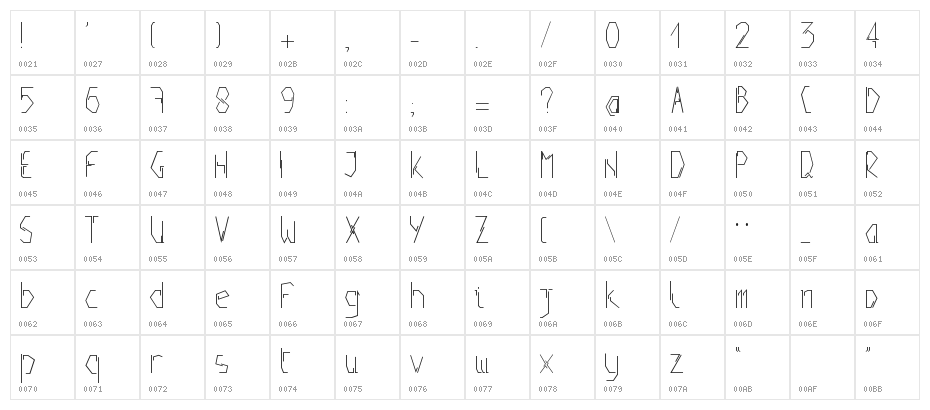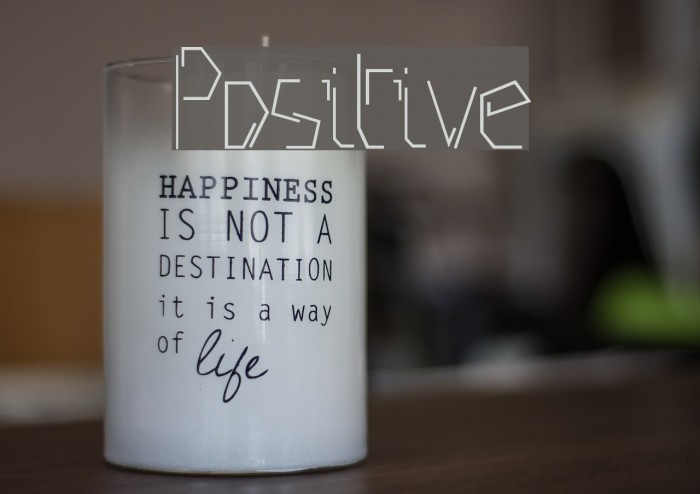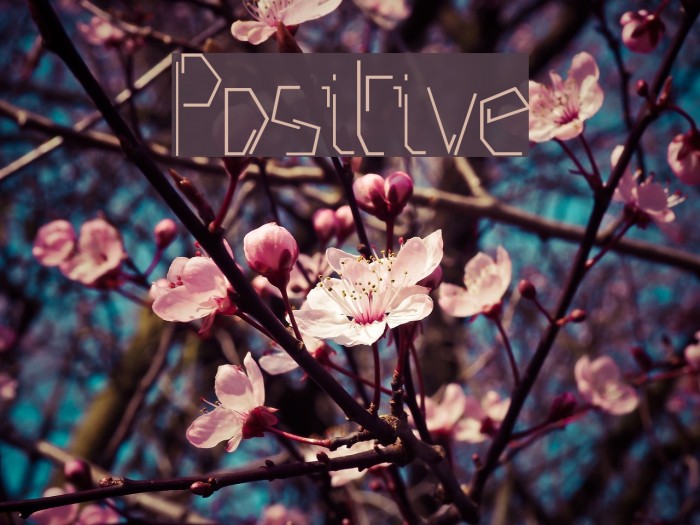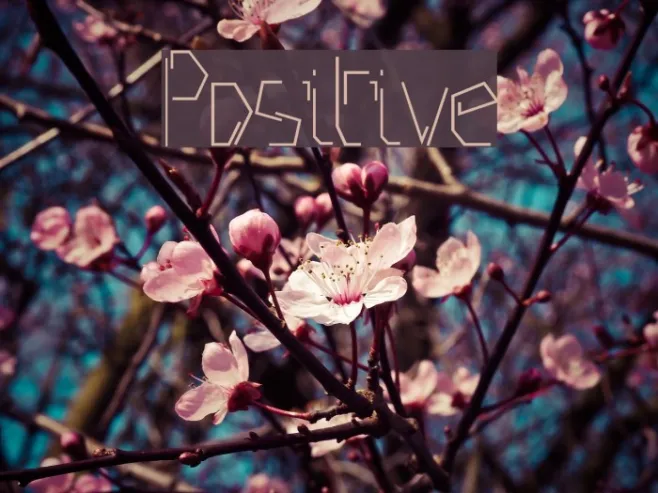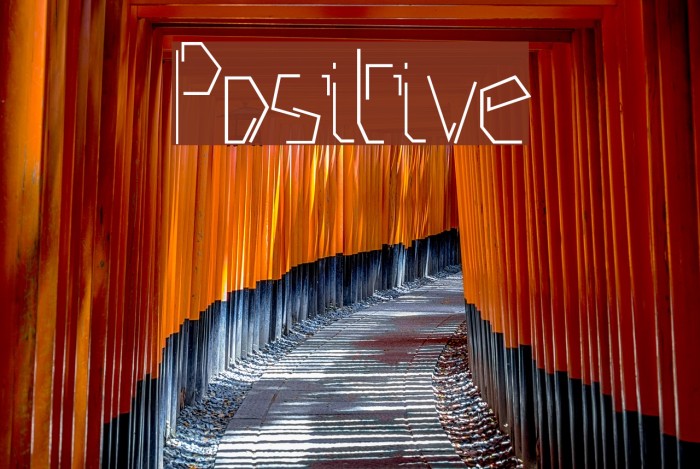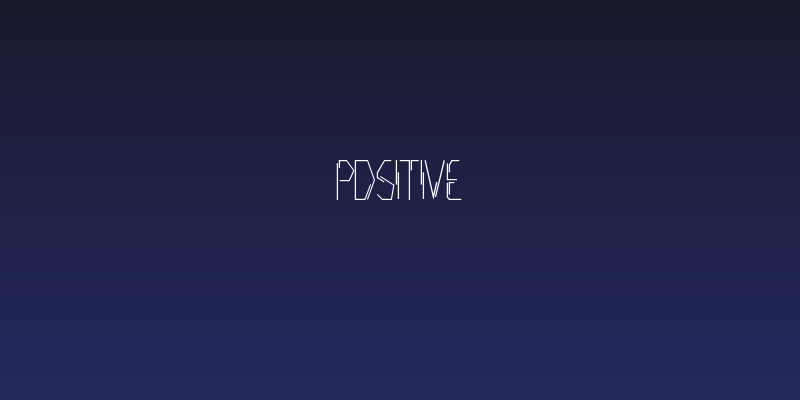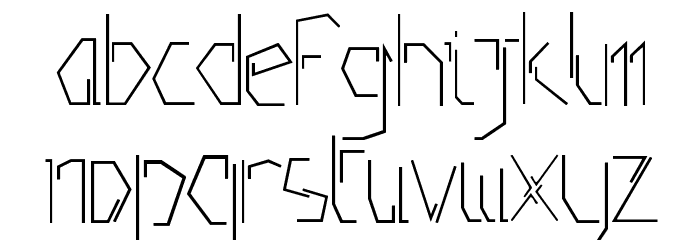
Positive Font
Positive Description
This font features a geometric and angular design, characterized by its sharp edges and linear strokes. The uppercase and lowercase letters maintain a consistent style, with a futuristic and technical appearance. The numerals and special characters follow the same design principles, ensuring uniformity across all glyphs. The font's unique structure makes it stand out, with each character crafted to emphasize its angularity and precision. This design is particularly suitable for projects that require a modern and edgy aesthetic.
| Proposed Projects | Ideal for technology branding, sci-fi themed designs, modern posters, and digital interfaces. |